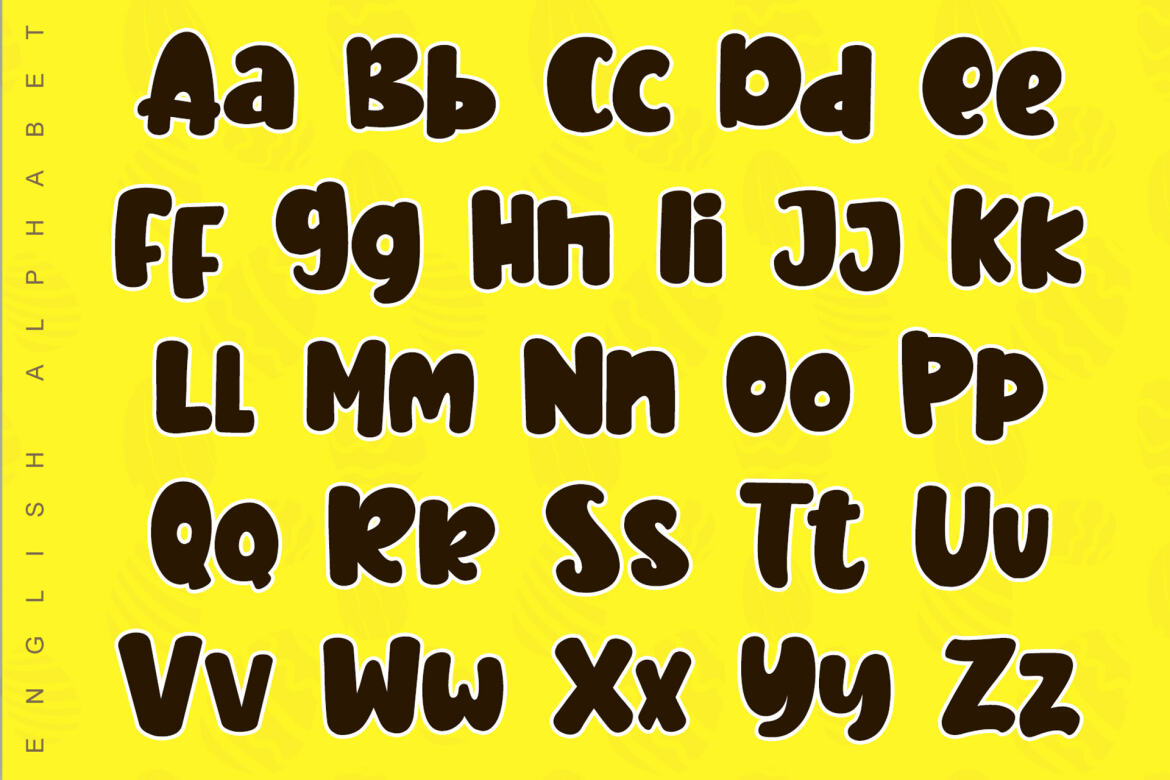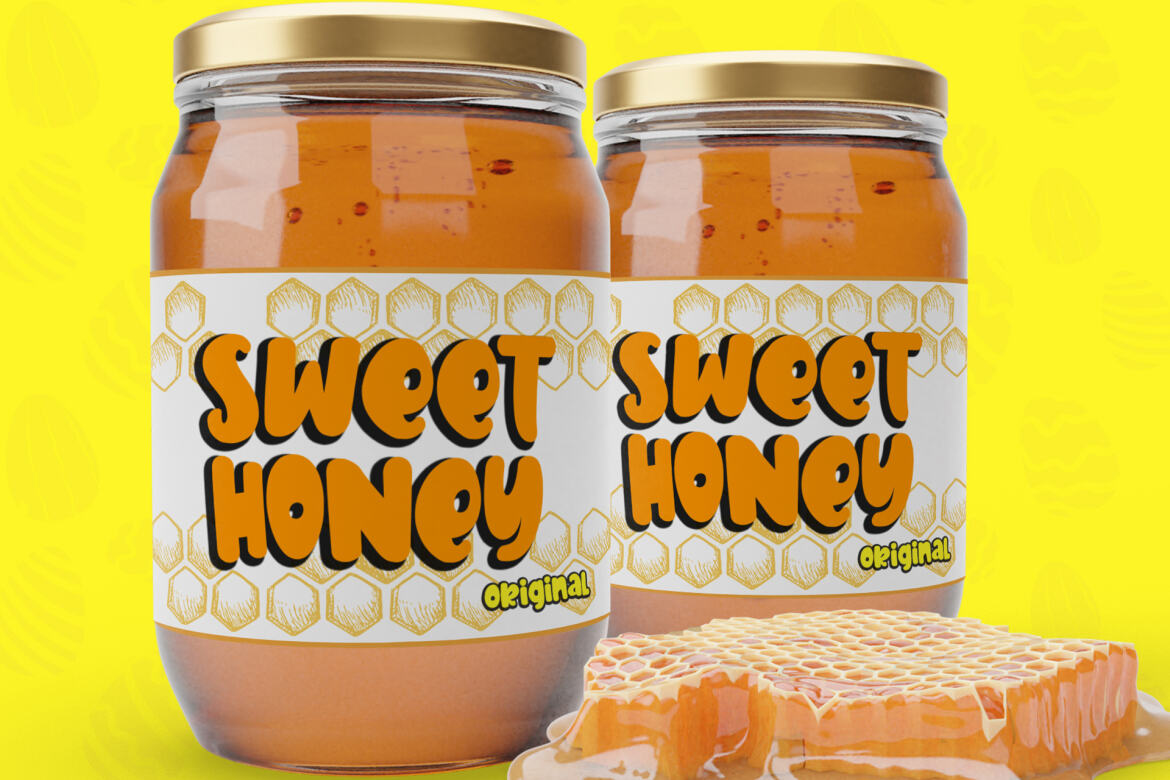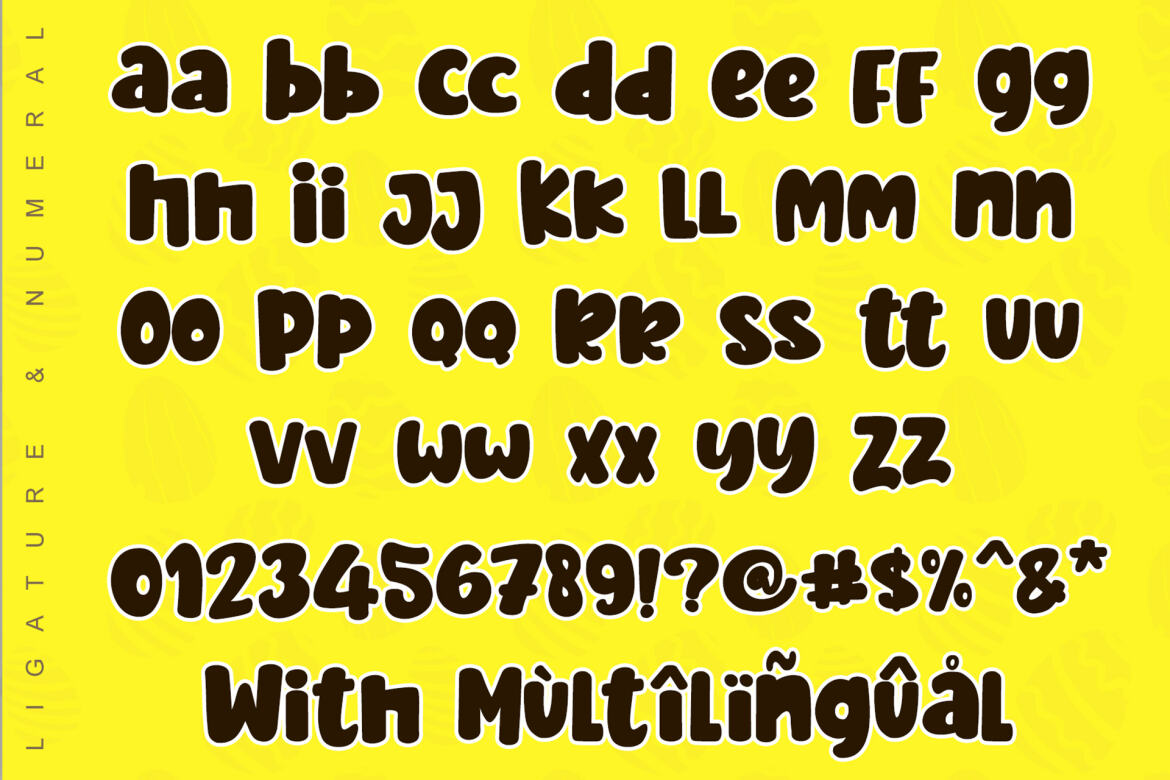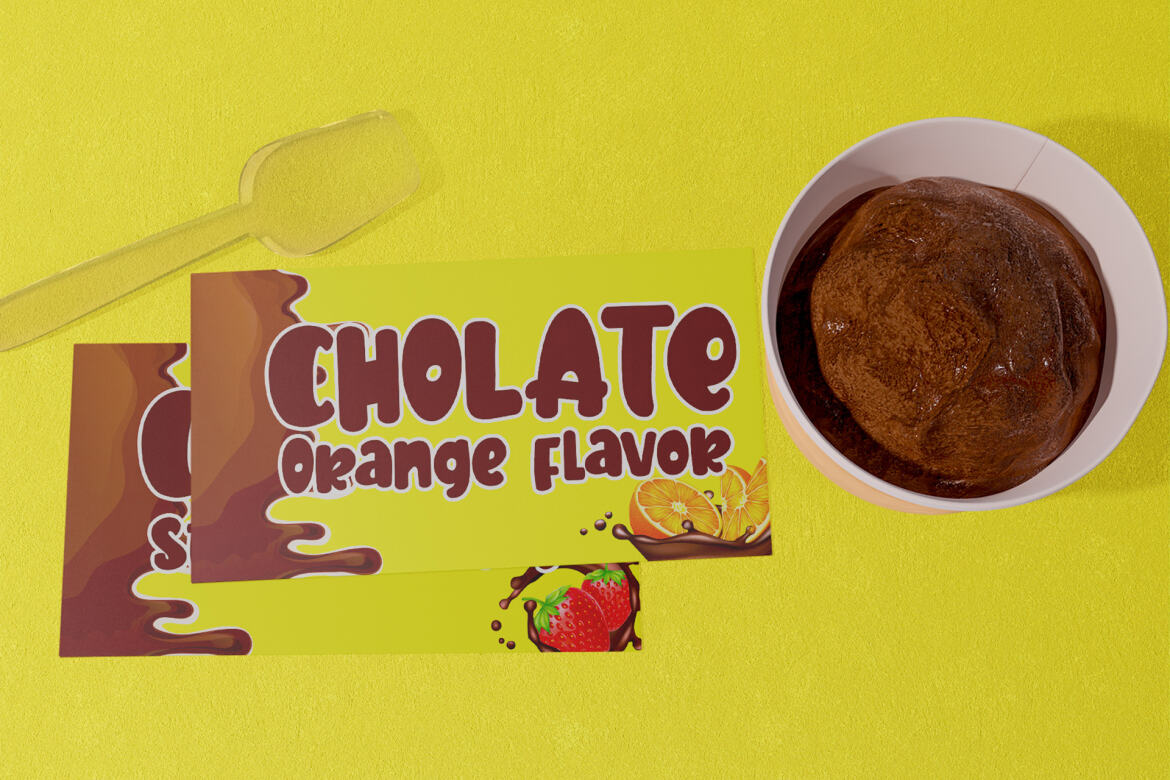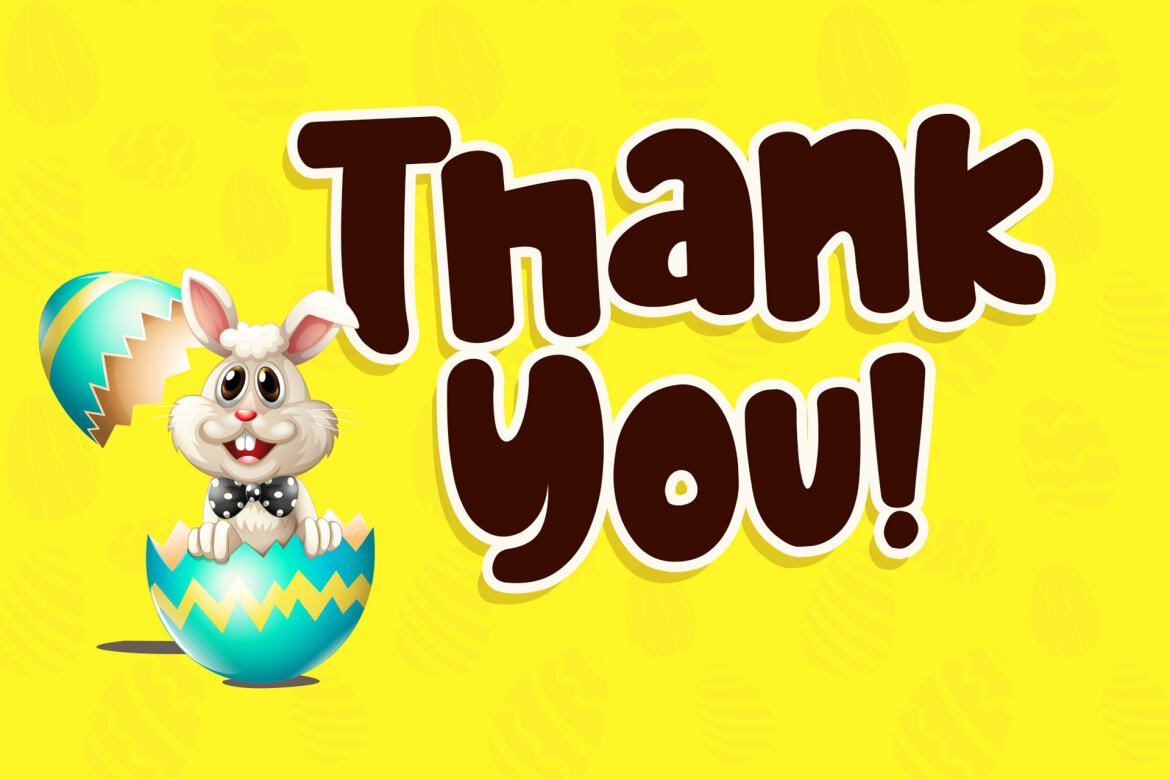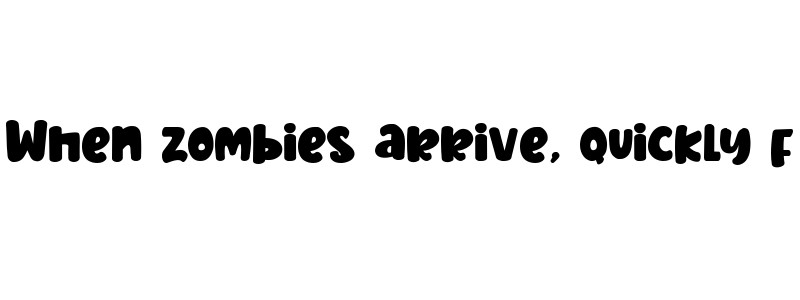
Easter Wishes
Easter Wishes is a cute and sweet handwritten font with an incredibly friendly feel. Get inspired by its playful feel! This font is PUA encoded which means you can access all of the cute glyphs with ease! It also features a wealth of special features including alternate glyphs and ligatures.
• • support multilingual; ä ö ü ä ö ü ß ¿ ¡